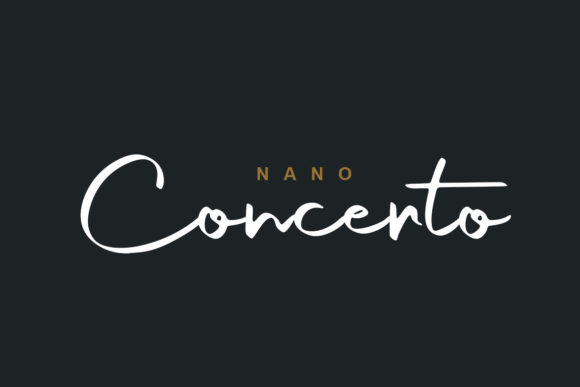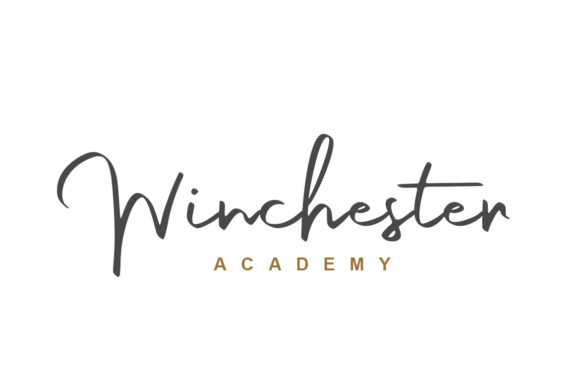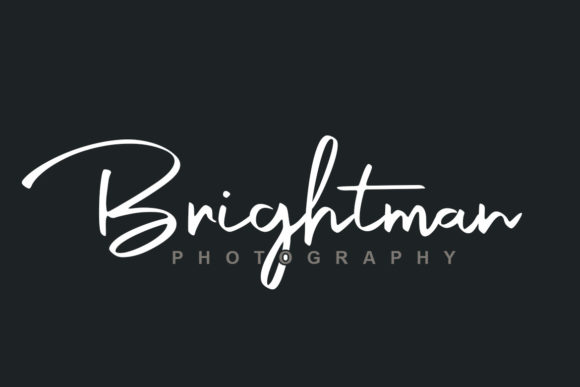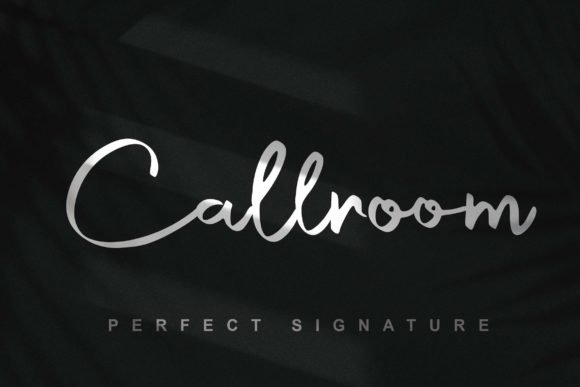
Introduction to Callroom Font
Callroom is a flowing handwritten font, described by an elegant touch, perfect for your favorite projects.
Fall in love with its incredibly distinct and timeless style and use it to create spectacular designs Callroom is PUA encoded which means you can access all of the glyphs and swashes with ease.
Callroom Font offers exceptional quality and versatility, making it a valuable addition to your design toolkit. Whether you’re creating for personal projects or commercial use, Callroom Font delivers professional results.